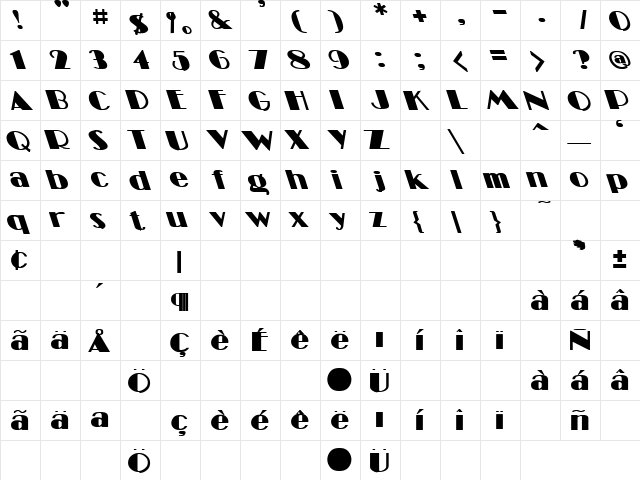
Little Wing 7 Bold
Design Context for Little Wing 7 Typeface
Little Wing 7 is a composed and adaptable typeface that performs quietly and consistently across a wide range of design contexts. The heavy weight commands attention and anchors typographic hierarchies.